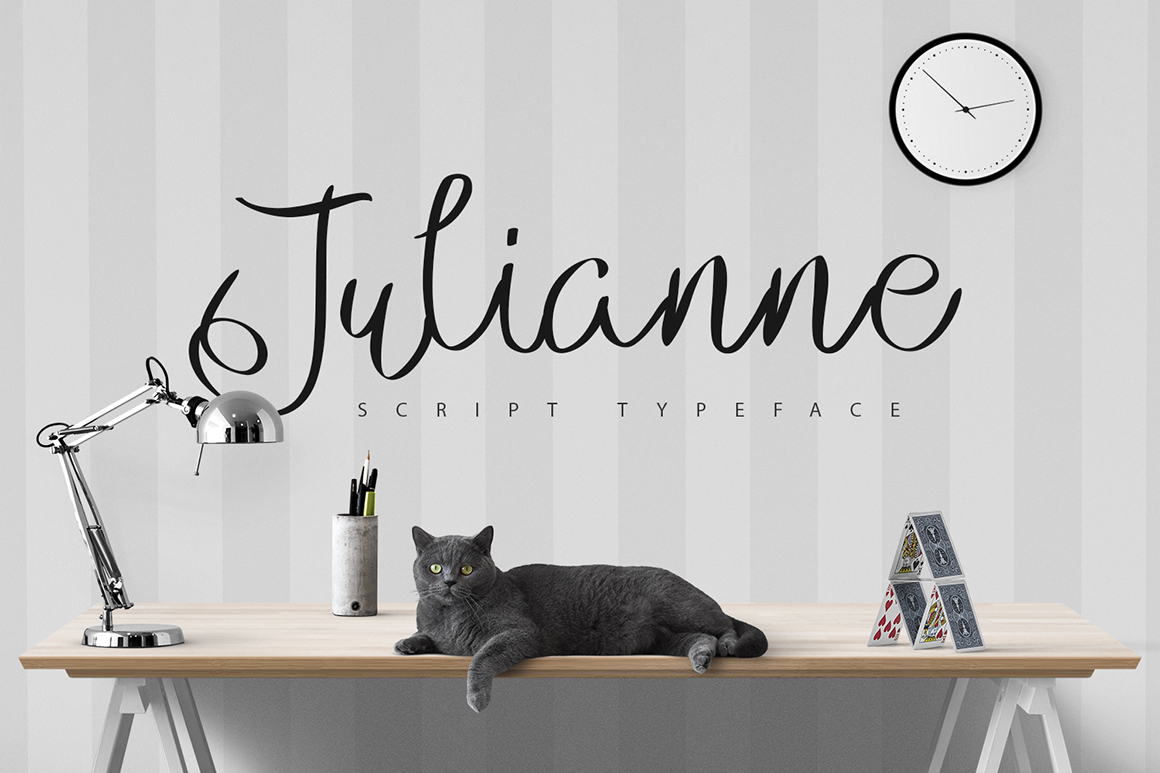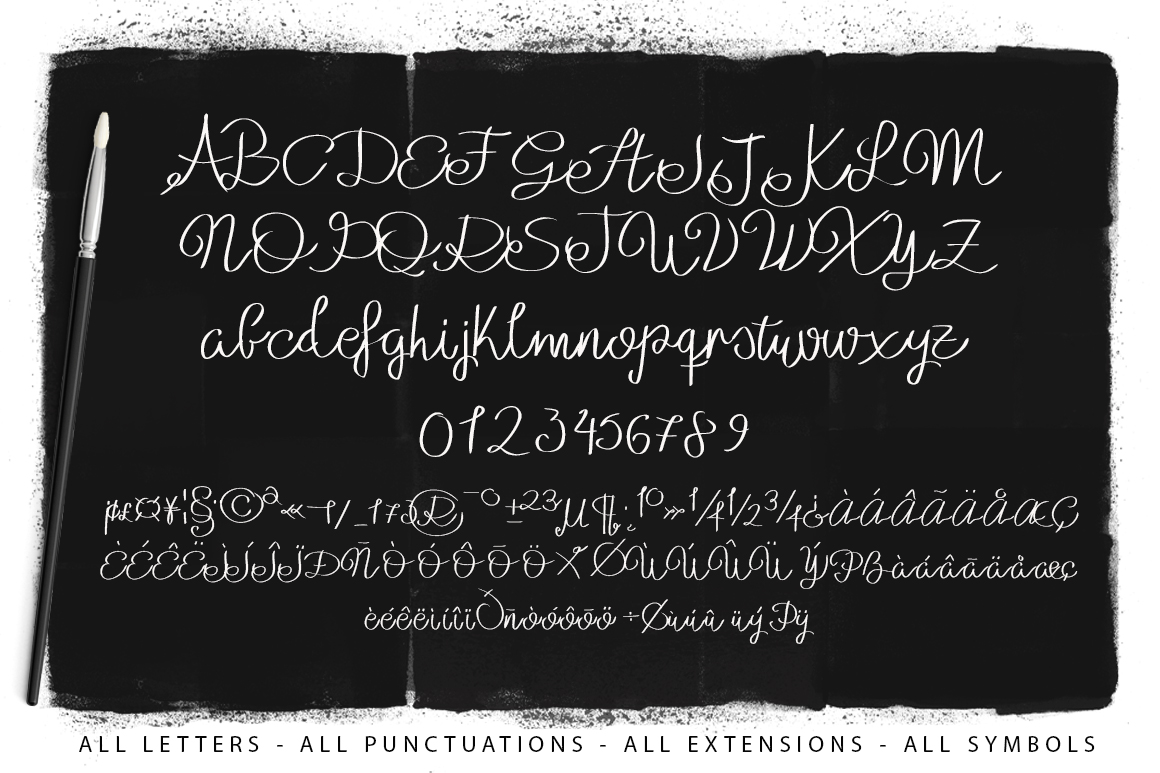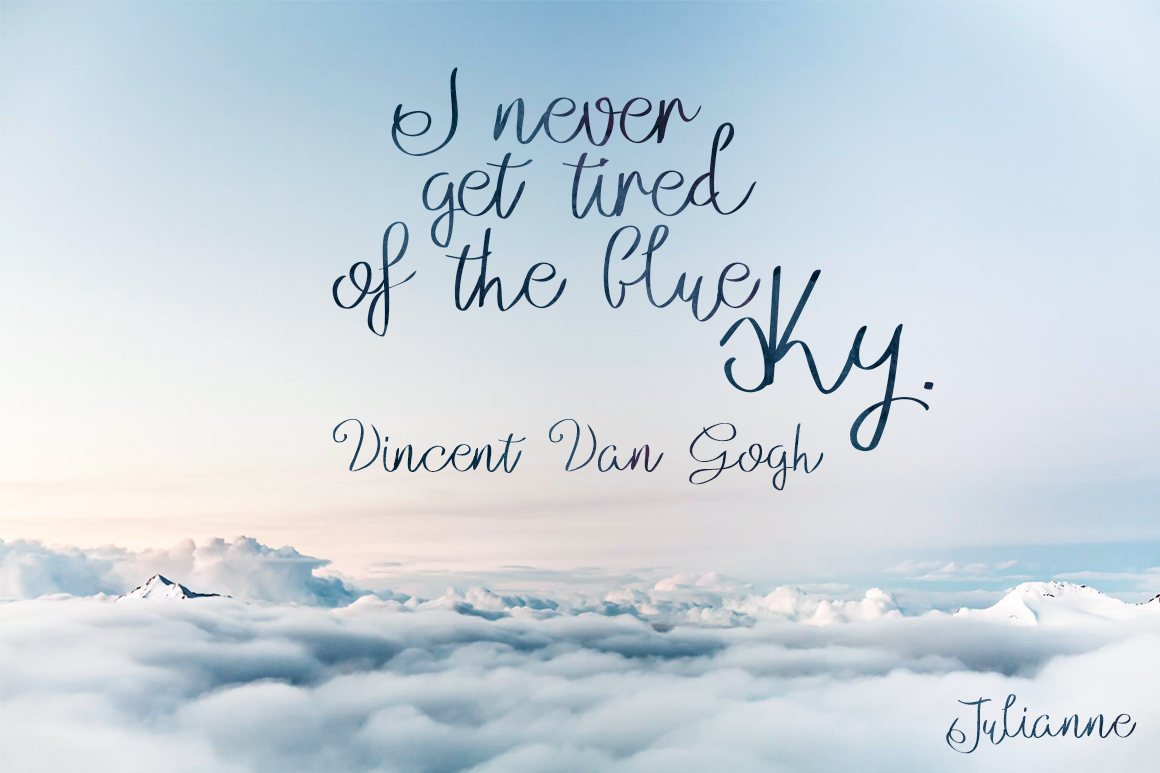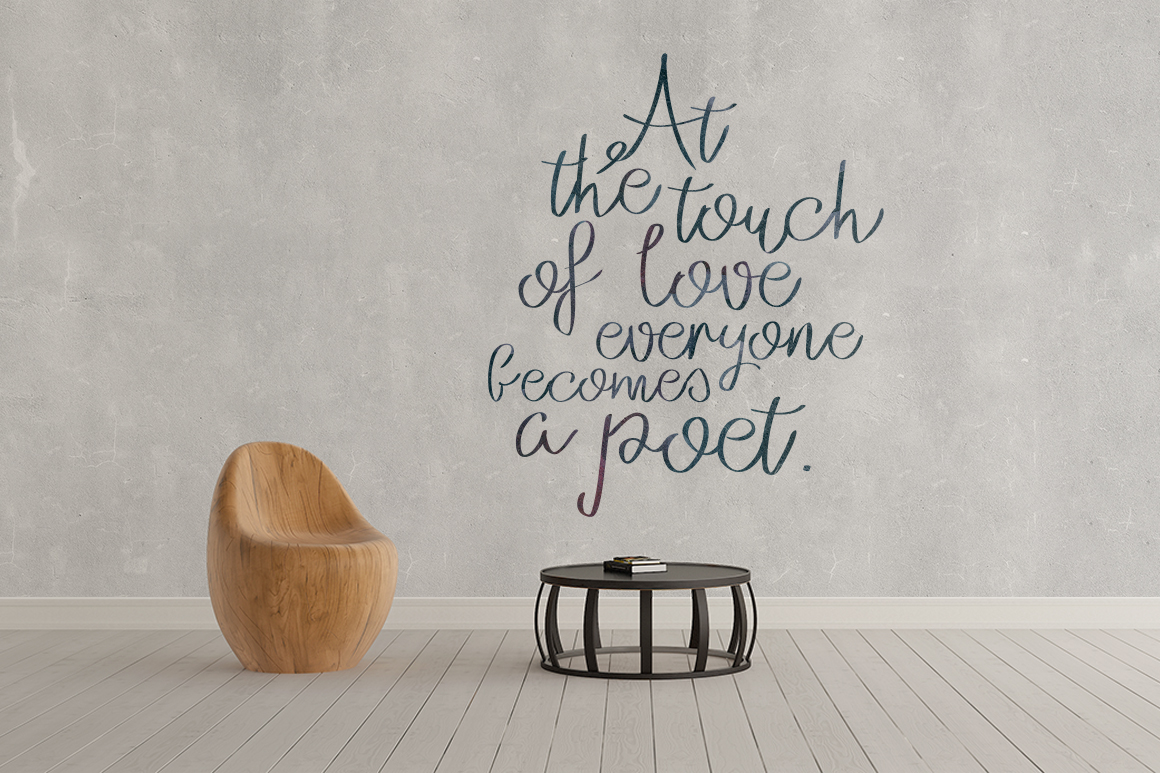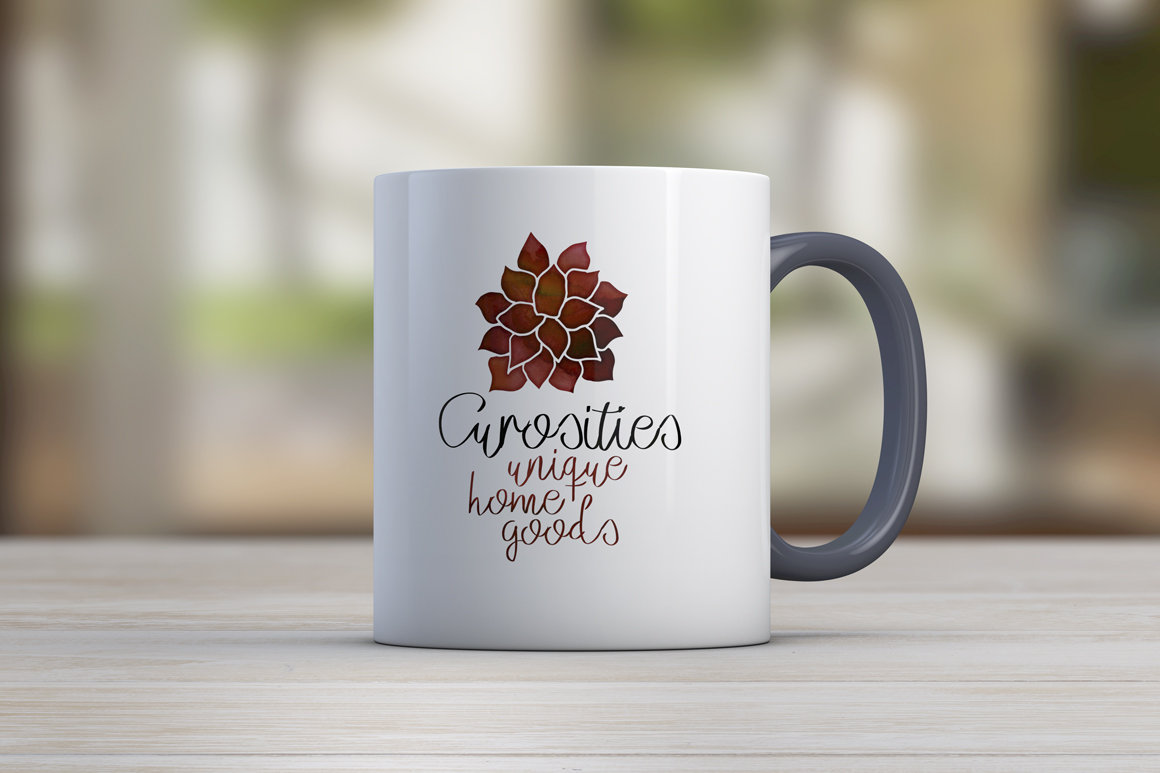
Julianne Font
About Julianne Font
Julianne is a smooth, thin marker handwritten font.
The Julianne font has beautiful smooth letters. Every glyphs has been perfect to match the others and the result is a super fluid font.